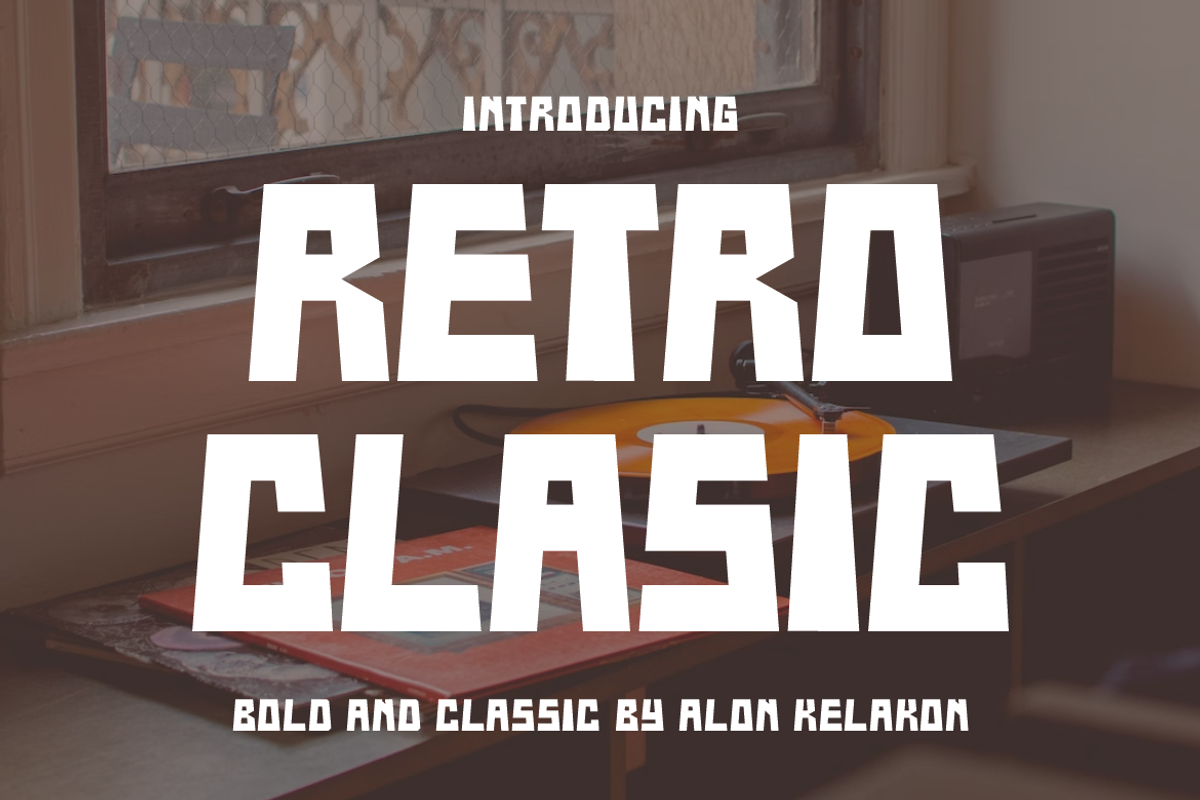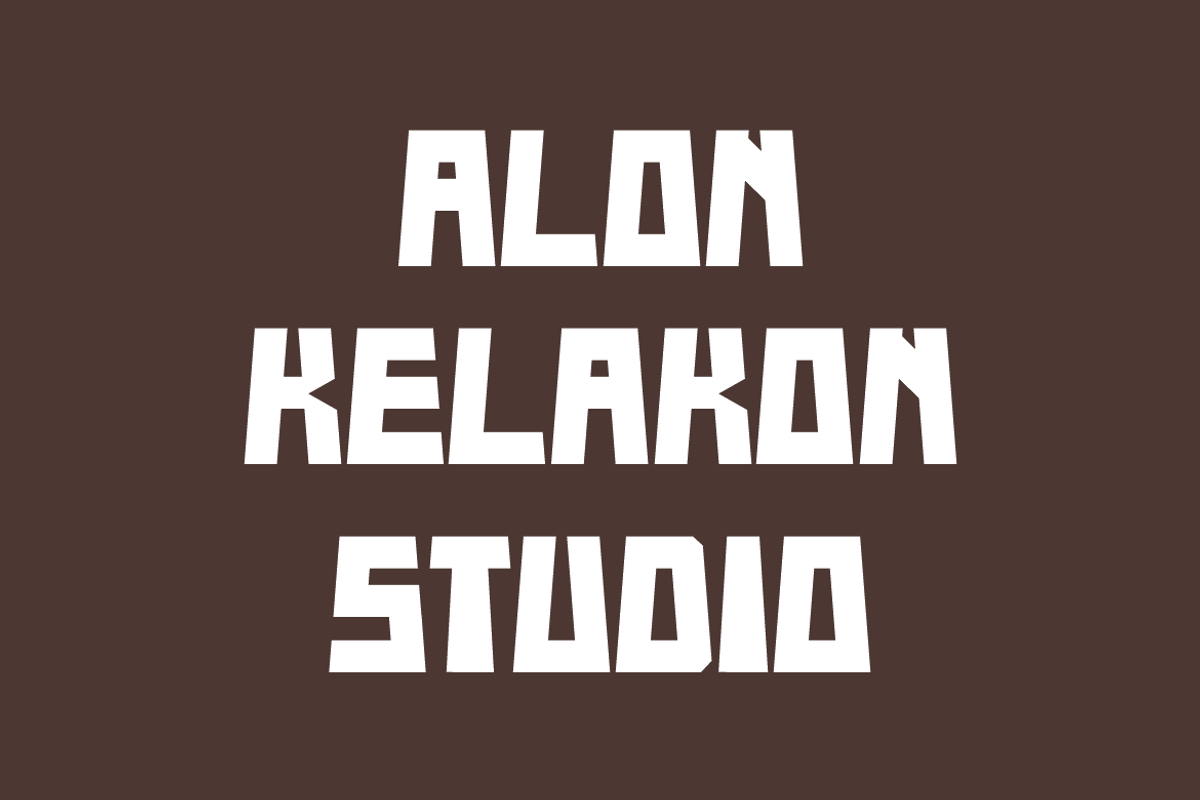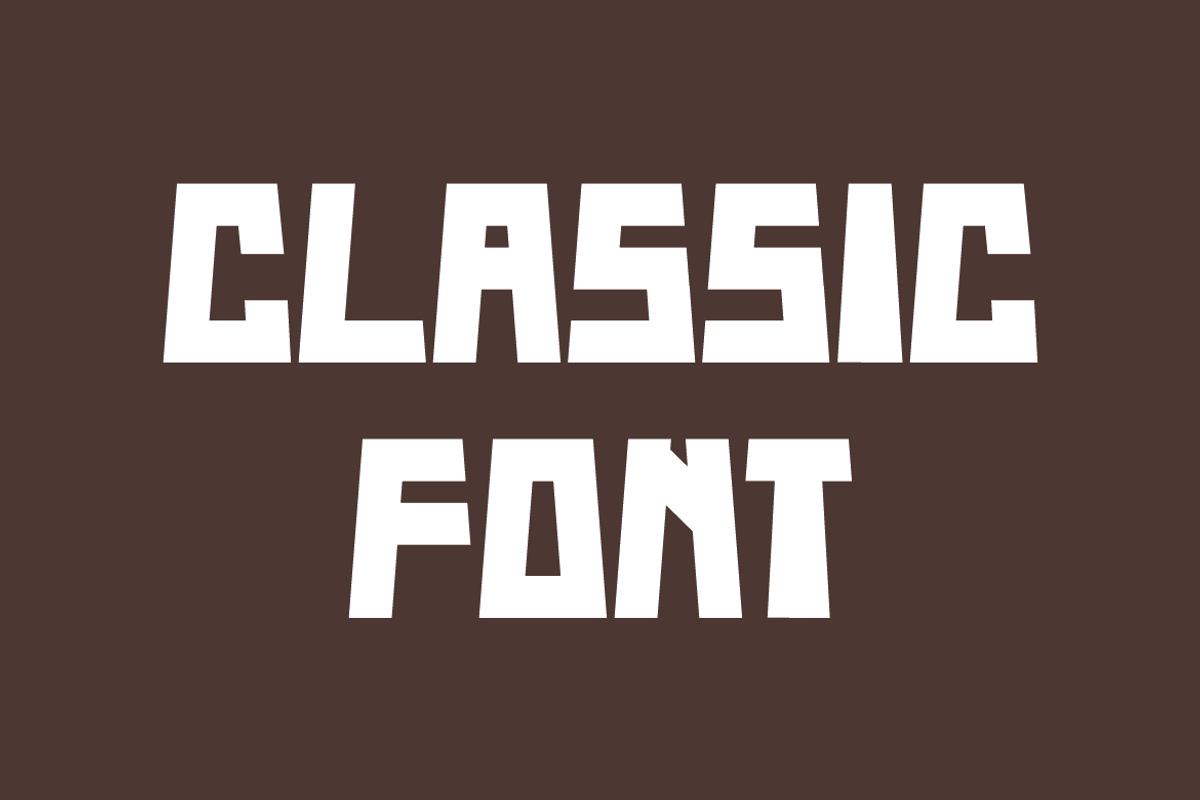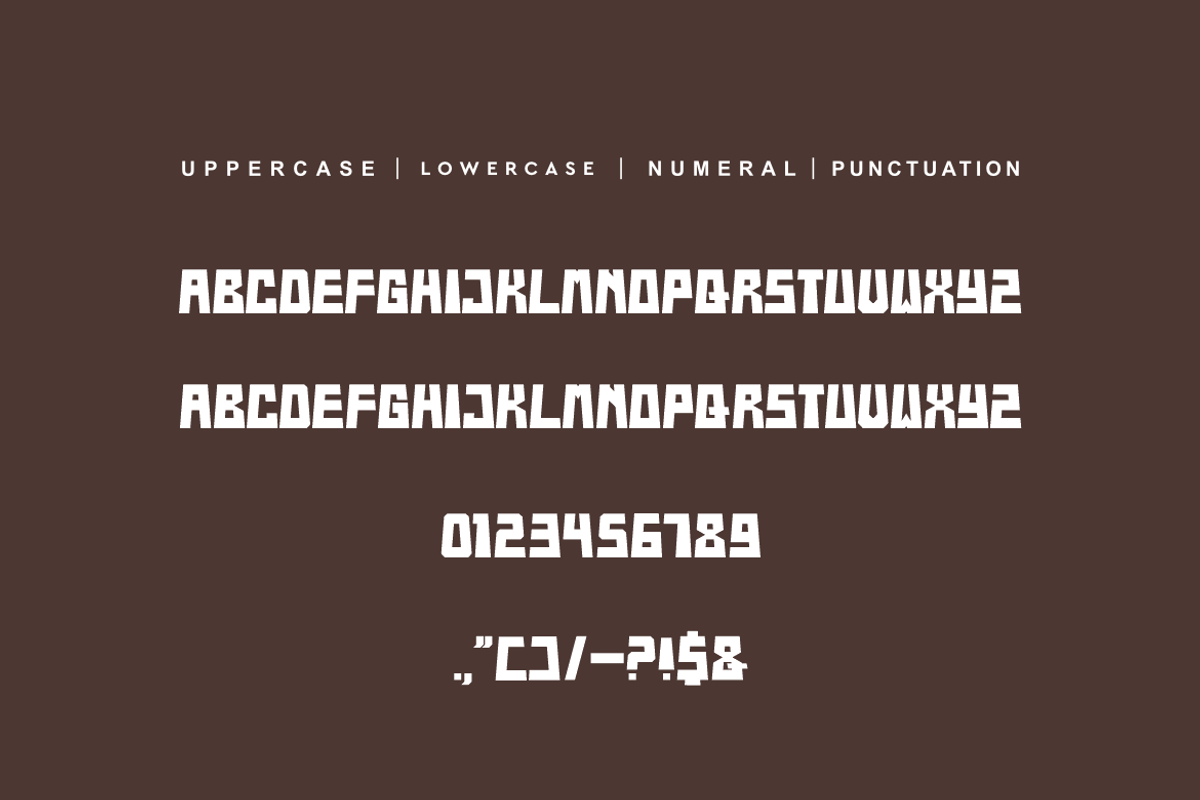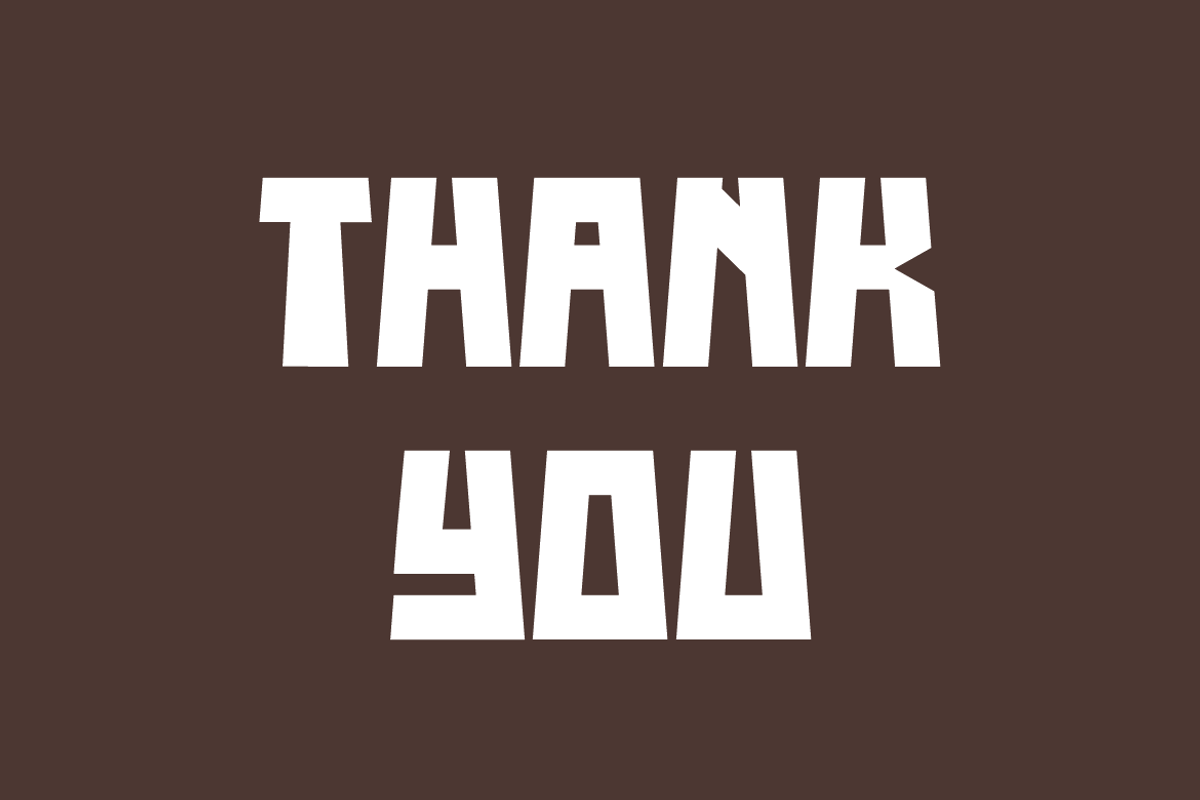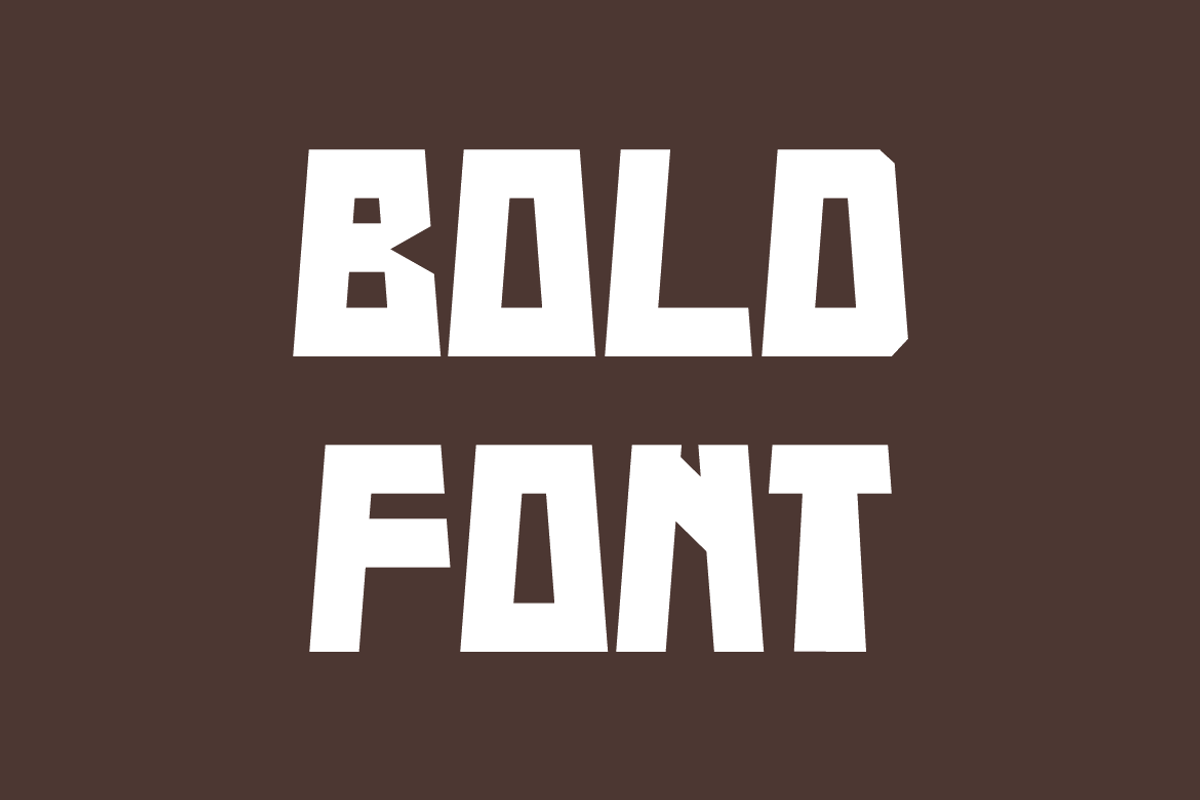
Retro Clasic
Retro Clasic Font is unique . Ready to use for your design like labeling, movie sceen, poster, movie title, gigs, album covers, logos, and much more.